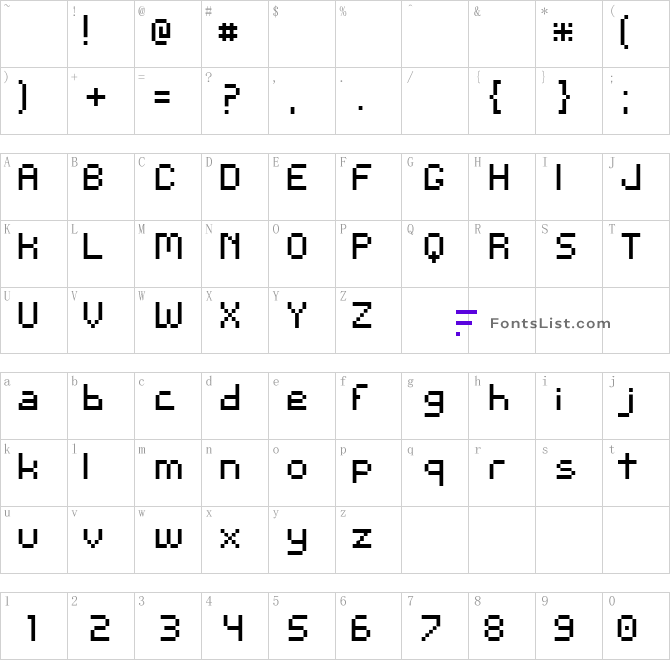
- Font Name:Andina
Andina.ttf is a very beautiful artistic font, Andina.ttf is widely used in the design and printing of various books and pictures,Andina.ttf has a strong visual impact,Andina.ttf is a commonly used font in newspapers, magazines and books, and is used in posters, e-commerce Poster design, store design, logo design, font design and other fields.Andina.